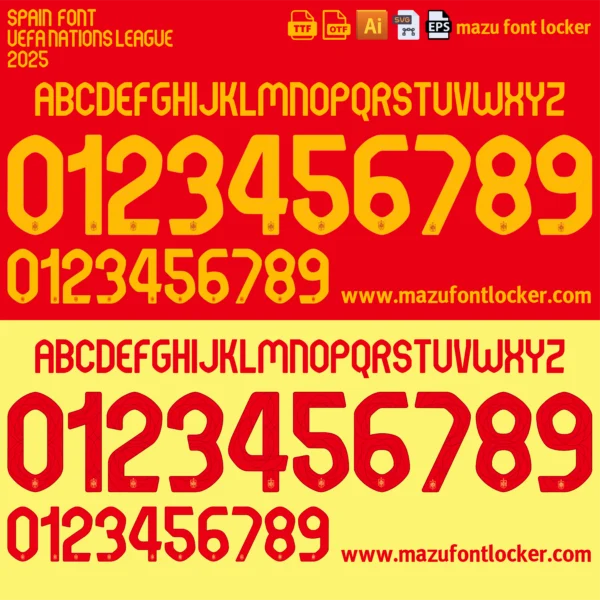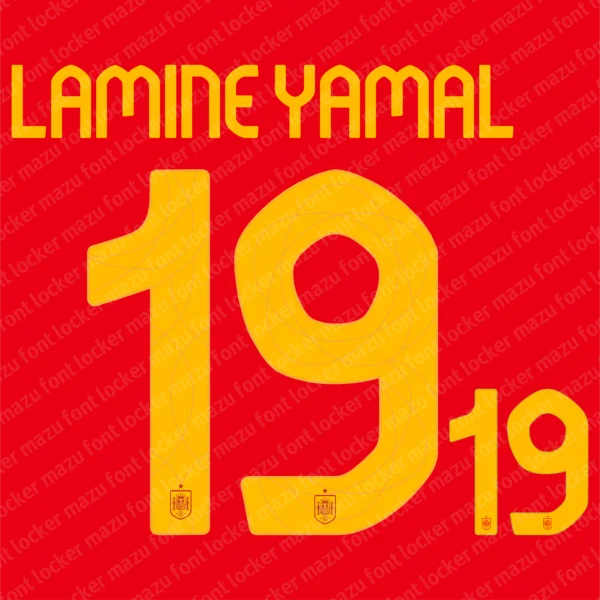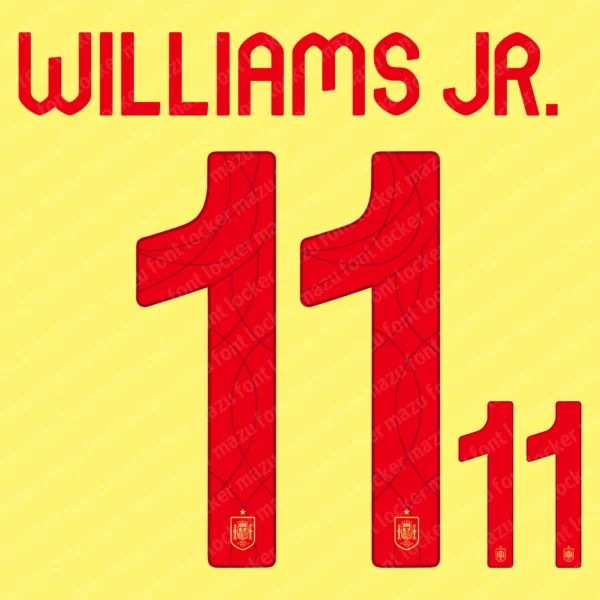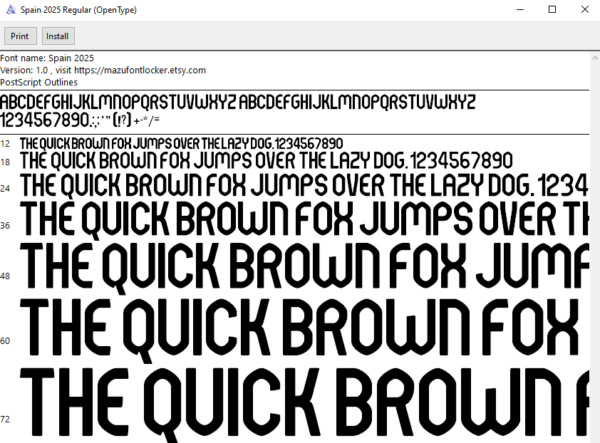
Spain 2025 Font Vector – Stunning La Furia Roja Power Font
Spain 2025 Font Vector – Authentic La Roja Typeface
The Spain 2025 Font Vector is a premium typeface that accurately recreates the official match lettering worn by the Spain national team during the 2025 international season. This high-quality vector font kit captures the bold, modern, and stylish typography that represents the current golden generation of Spanish football.
Designed for professional designers and passionate Spain fans, the Spain 2025 Font Vector delivers perfect authenticity for creating realistic jersey mockups, fan merchandise, matchday posters, social media graphics, and tournament content. It pairs beautifully with the iconic red home kit featuring the famous RFEF crest.
Why Choose Spain 2025 Font Vector
This font stands out because of its sharp vector precision and strong national identity. Every letter and number is crafted to match the exact style used on the players’ shirts during the 2025 campaign. Whether you are making realistic kit templates or exciting La Roja content, the Spain 2025 Font Vector gives your designs that authentic Spanish look.
The letterforms in the Spain 2025 Font Vector are tall, bold, and highly readable. The strokes have a strong, clean weight with excellent edge definition that looks powerful on the back of jerseys while maintaining modern elegance and clarity.
- Full uppercase A–Z and numbers 0–9 in authentic Spain 2025 style
- Special RFEF crest glyph for accurate shirt number detailing
- Multilingual Latin character support including diacritics
- Create highly realistic Spain 2025 home and away jersey mockups with accurate lettering
- Design stunning match posters, score graphics, and squad announcements
- Produce custom Spain national team merchandise with the 2025 aesthetic
- Includes the exact crest glyph placement used under player numbers
Spain 2025 Campaign
Following their Euro 2024 triumph, Spain enters 2025 as one of the strongest teams in the world. Led by stars such as Lamine Yamal, Rodri, Pedri, Nico Williams, and captain Álvaro Morata, La Roja continues to play their signature tiki-taka style with youthful energy and tactical excellence as they prepare for upcoming competitions including the UEFA Nations League and 2026 World Cup qualifiers.
The Spain 2025 Font Vector is an independently designed typeface package. It is carefully crafted to replicate the official shirt lettering style of the 2025 season. This font kit is perfect for creative projects, fan edits, nostalgic jersey designs, and custom football graphics.